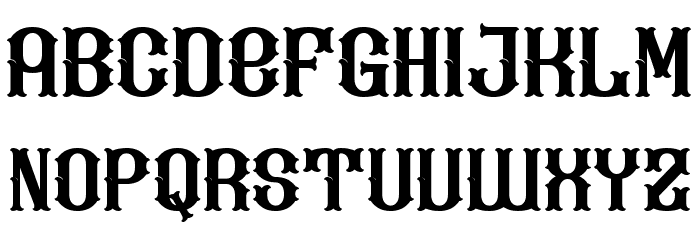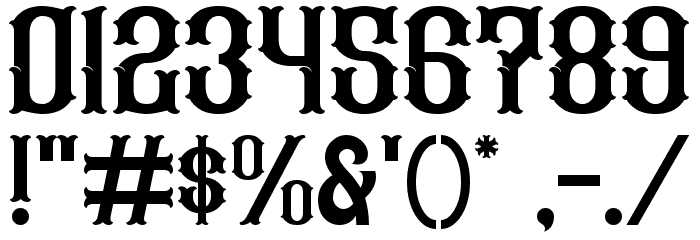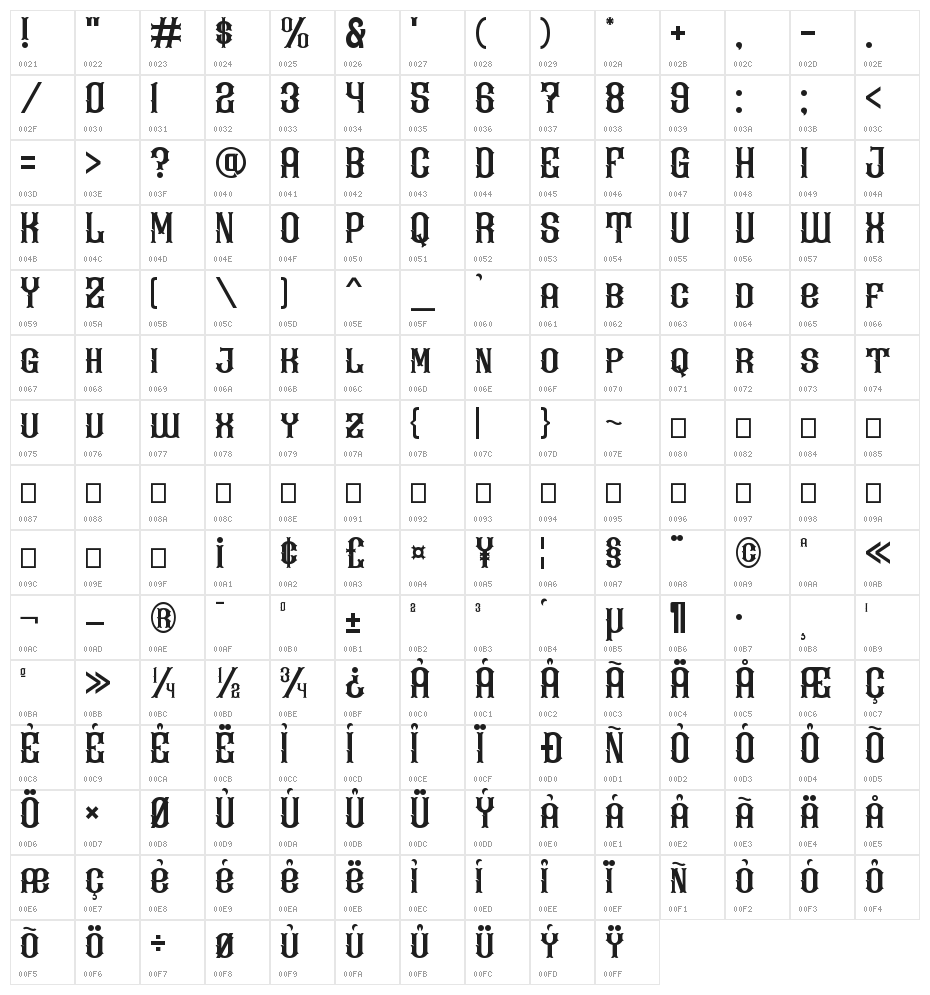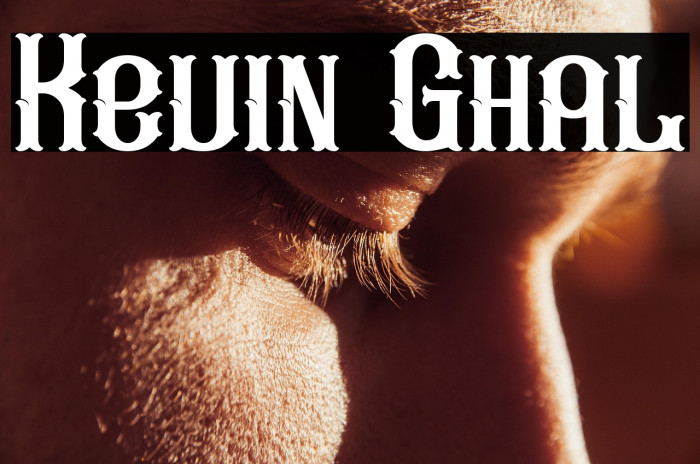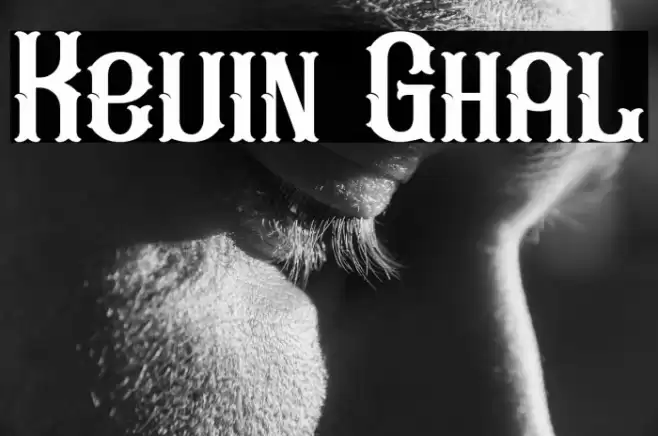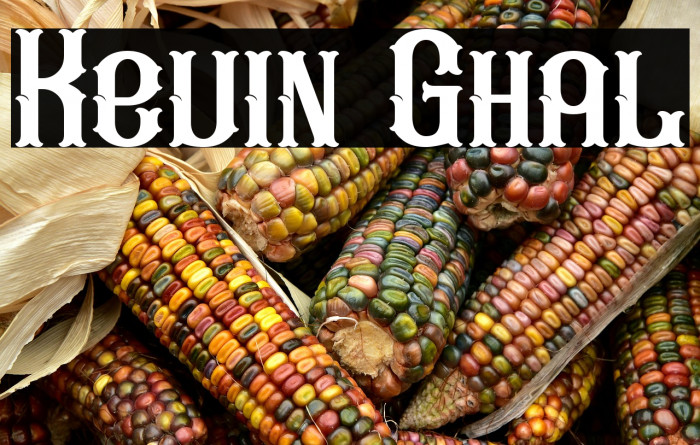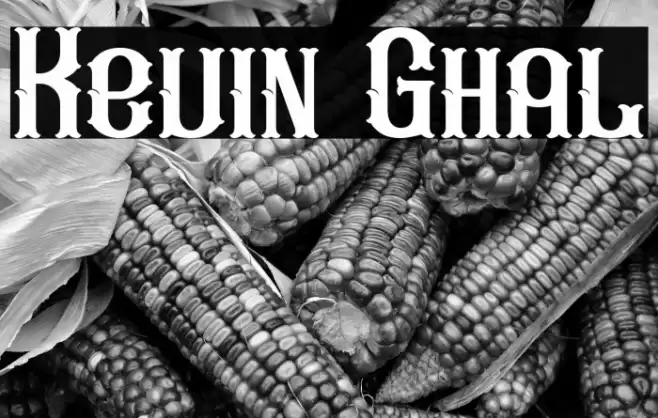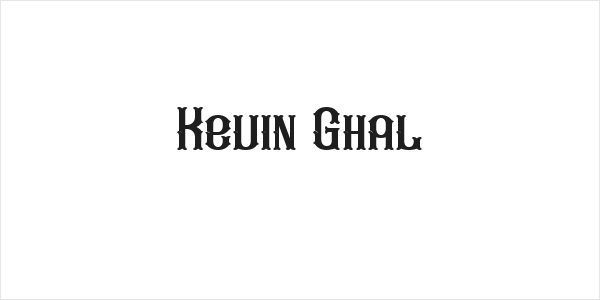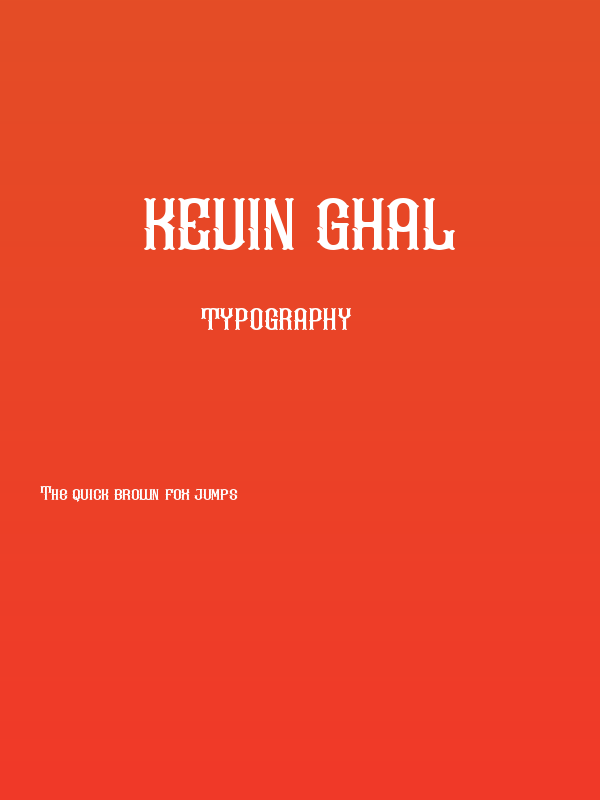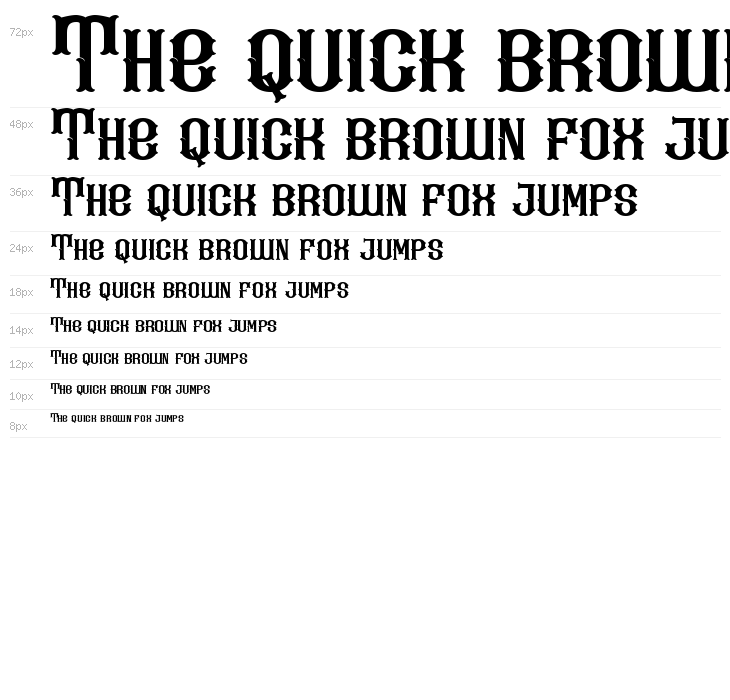
Kevin Ghal Font
This font exhibits a bold and decorative style with a distinct vintage flair. The characters are intricately designed with sharp edges and unique embellishments, giving them a striking appearance. The uppercase letters are particularly ornate, featuring pronounced serifs and intricate detailing that evoke a sense of old-world charm. The lowercase letters maintain a consistent style, complementing the uppercase with their own decorative elements. The numerals and special characters follow the same design ethos, ensuring a cohesive look across all glyphs. This font's boldness and decorative nature make it ideal for projects that require a strong visual impact.
A bold, decorative font with vintage flair and intricate detailing.
- Font: Kevin Ghal
- Proposed Projects: Ideal for vintage-themed posters, logos, book covers, and branding materials that require a strong visual impact.
- Overall Style: Vintage